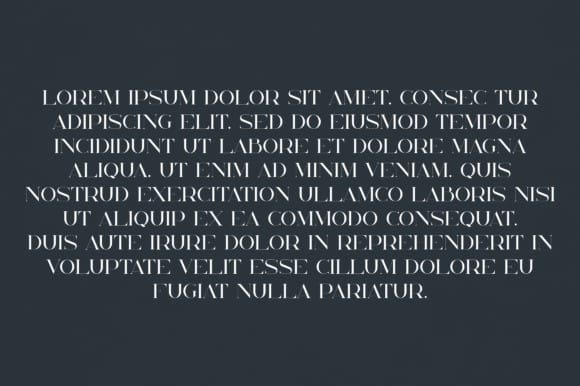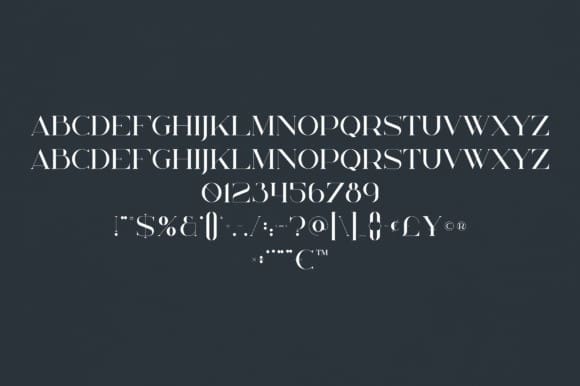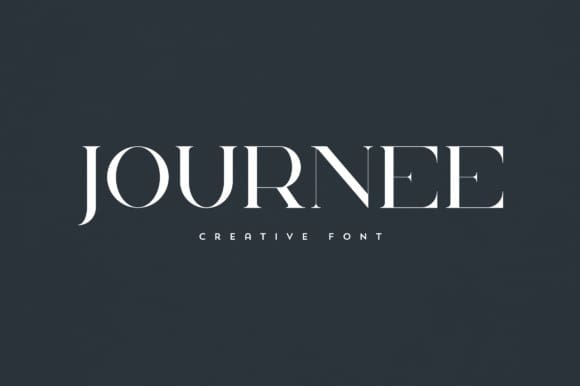
Journee Font
Journee Font is an elegant and versatile serif font that will make your typography truly unique! It will enchant every logo, branding, headline, or plain text!